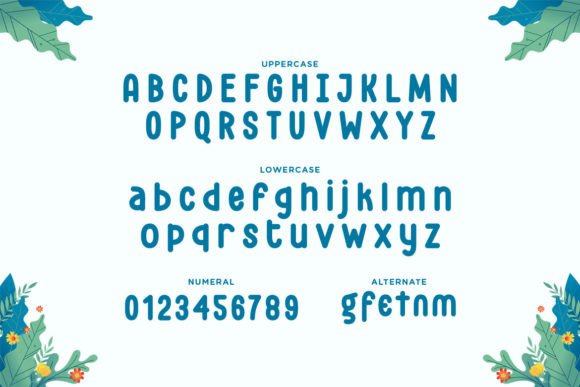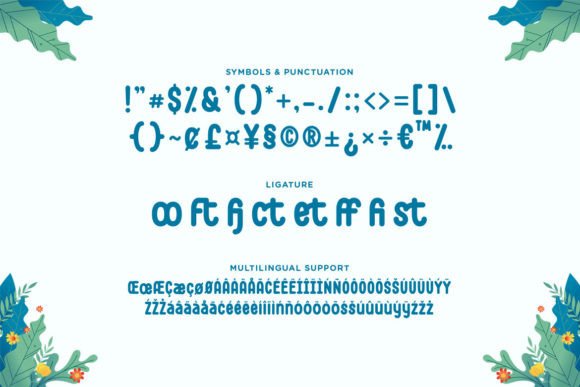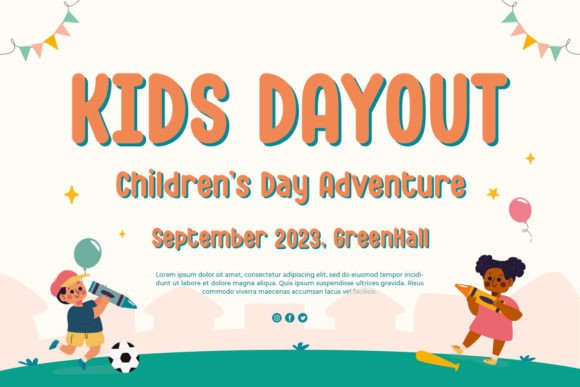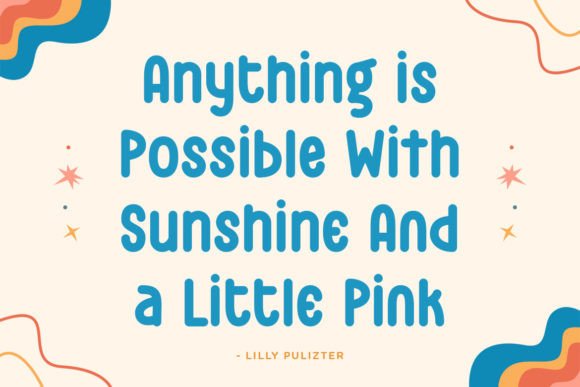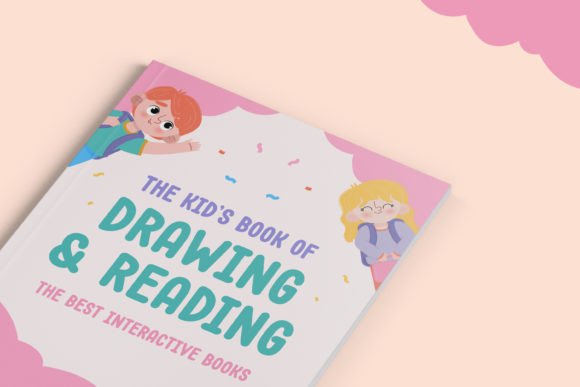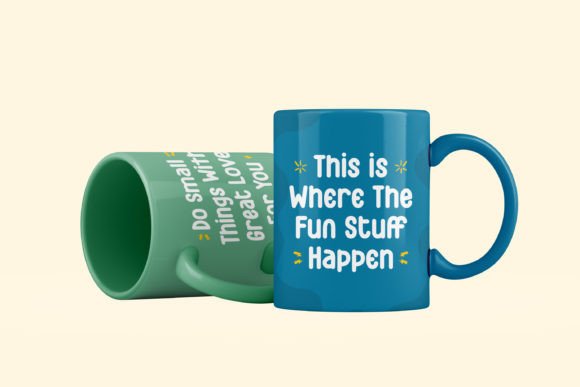
Unleashing the Power of Big Life Font
There’s nothing quite like the thrill of discovering a new font that speaks to your creative soul. For many designers, it’s the moment when a project starts to come together – a perfect balance of typography, color, and composition. It’s that ‘aha’ moment when you know you’ve found the perfect tool to bring your vision to life. Big Life Font is one of those magical discoveries that will leave you wondering how you ever managed without it.
This gorgeous, rounded fancy font is more than just a pretty face – it’s a game-changer for designers looking to elevate their work. Whether you’re working on a busy background or creating a standalone headline, Big Life Font is sure to shine. Its versatility and unique charm make it a valuable addition to any designer’s toolkit.
Big Life Font Key Features
- Font Family: Big Life Font is a custom-designed font family, ideal for use in various applications, including digital and print media.
- Resolution: Supports high-resolution designs, making it suitable for use in print media, digital displays, and web applications.
- Unique Characteristics: Big Life Font features bold, playful, and elegant letterforms, making it an ideal choice for creating attention-grabbing headlines, titles, and signage.
- Character Set: Includes a comprehensive character set, including uppercase and lowercase letters, numbers, punctuation marks, and special characters.
Big Life Font Review
Overall, I’m impressed with the Big Life Font. It’s a clear, bold, and stylish font that can add a lot of personality to your designs.
- ✨ Big and bold – perfect for headings and titles that need to grab attention.
- ✨ Elegant and stylish – adds a touch of sophistication to any design.
- ✨ Highly legible – even at larger sizes, the font remains easy to read.
- ✨ Wide range of styles – from light to bold, there’s a style to suit any design need.
- ⚠️ Limited font sizes – while it’s great at larger sizes, it can look a bit clumsy at smaller sizes.
- ⚠️ Not ideal for body text – due to its bold nature, it can be overwhelming for large blocks of text.
- ⚠️ Not suitable for all audiences – the font’s style may not be to everyone’s taste.
Overall, I’d say Big Life Font is a great addition to any designer’s toolkit. While it has some limitations, its strengths make it a great choice for headings, titles, and other design elements where a bold and stylish font is needed.
Big Life Font is particularly effective for headings, titles, and overlays. Use it to add a touch of elegance and sophistication to your designs. It’s also great for creating quotes, song lyrics, or any other text you want to make stand out.
Some common use cases for Big Life Font include:
- Blog posts and articles
- Quotes and song lyrics